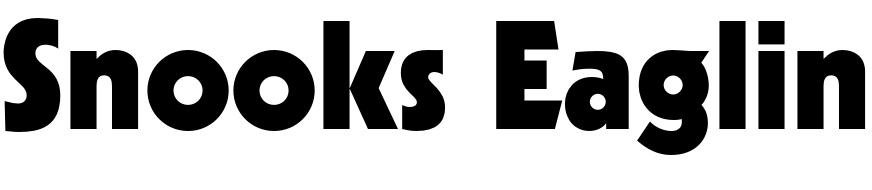
Country Boy Down in New Orleans Font
BluesCountry Boy Down in New Orleans is made up of 23 tracks recorded by Snooks Eaglin in the '50s. The album features a number of standout tracks, including "Country Boy Down in New Orleans," "Some Day," and "The Screamin' Mimi."
The font on the cover is likely Kabel, which Rudolf Koch created in 1928. The singer's name is probably written in Kabel Black, while the album title is in Kabel Heavy. You can view more details about Kabel typeface here.